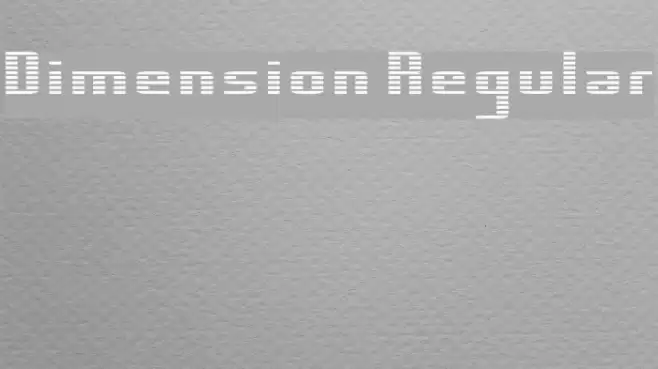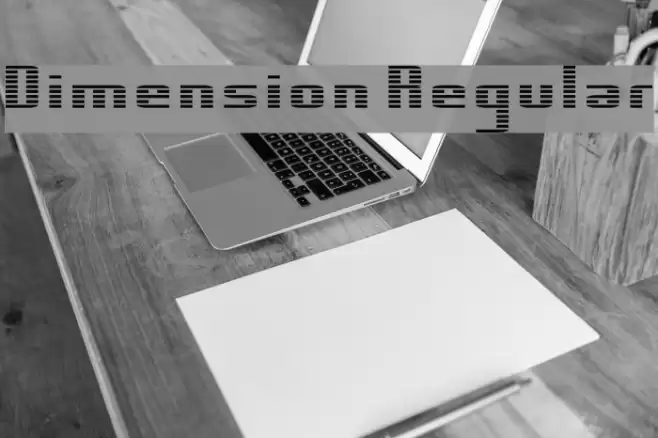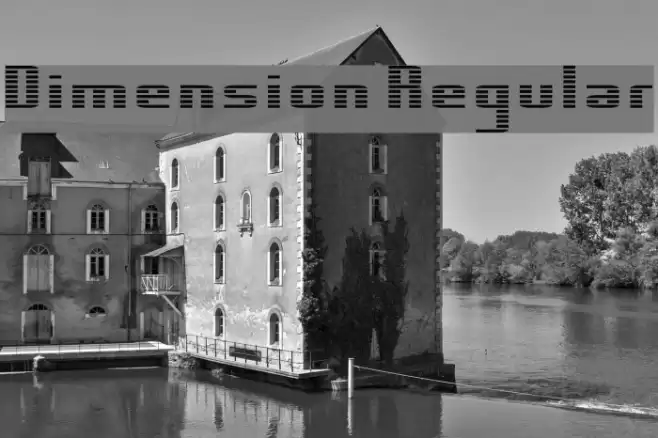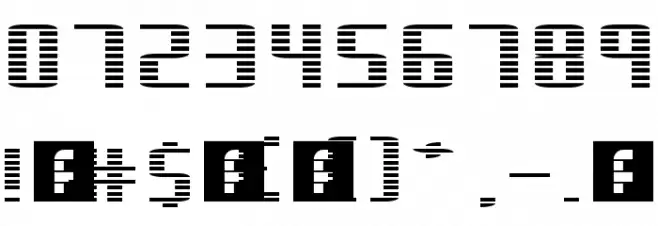
Dimension Regular Font
Dimension Regular Description
This font features a unique, modern design with a striped pattern running horizontally across each character. The uppercase and lowercase letters maintain a consistent width, creating a uniform appearance. The numerals and special characters follow the same design principle, ensuring cohesion throughout. The font's geometric structure and bold lines make it stand out, while the striped effect adds a dynamic, futuristic touch. It is ideal for projects that require a distinctive and eye-catching typeface, such as branding, posters, or digital media. The font's style is both decorative and functional, offering versatility in various design contexts.
A modern, striped font with a geometric and bold design from Uncategorized fonts.
- Proposed Projects: Ideal for branding, posters, digital media, and any project needing a distinctive, eye-catching typeface.